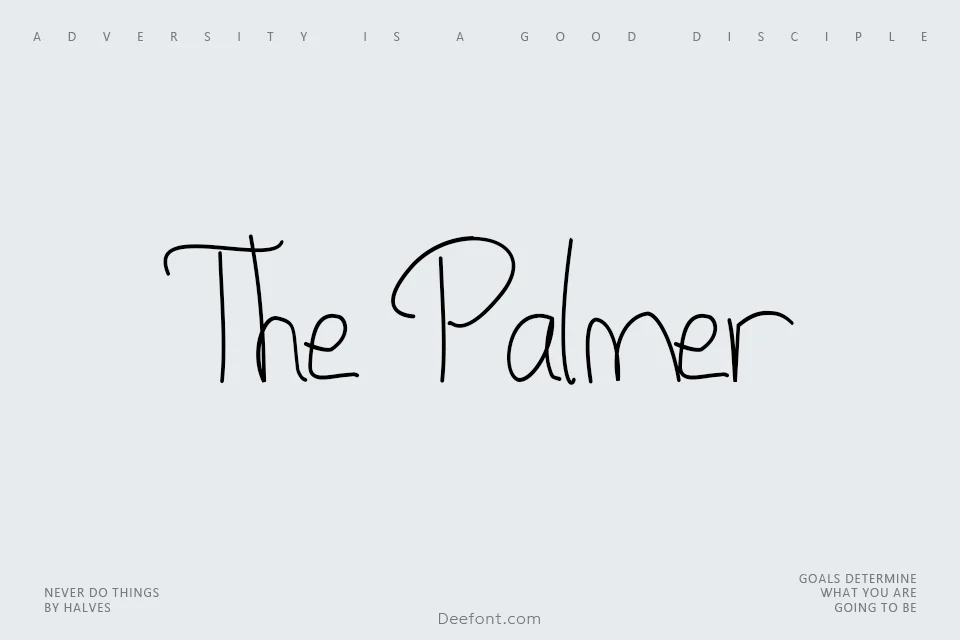
The Palmer Font
The Palmer is an elegant handwritten script font designed with a classic penmanship style, perfect for creating sophisticated and personal typography. This versatile typeface combines smooth, flowing letterforms with refined curves, making it ideal for stationery, invitations, branding materials, and creative projects that require an authentic handwritten aesthetic. The Palmer’s graceful strokes and balanced proportions bring a timeless, artistic quality to any design work.